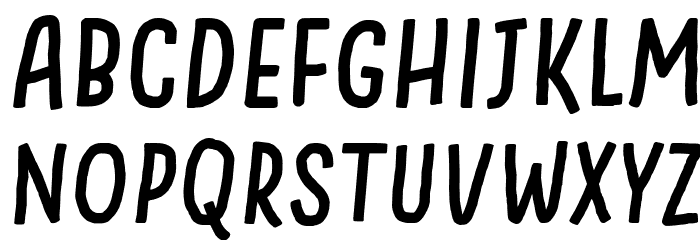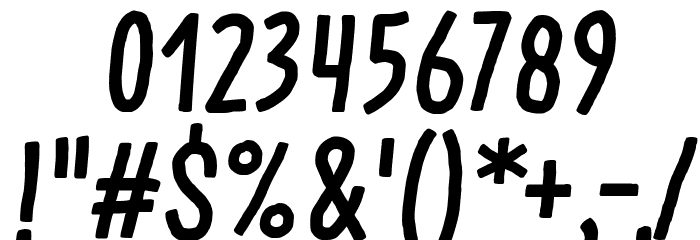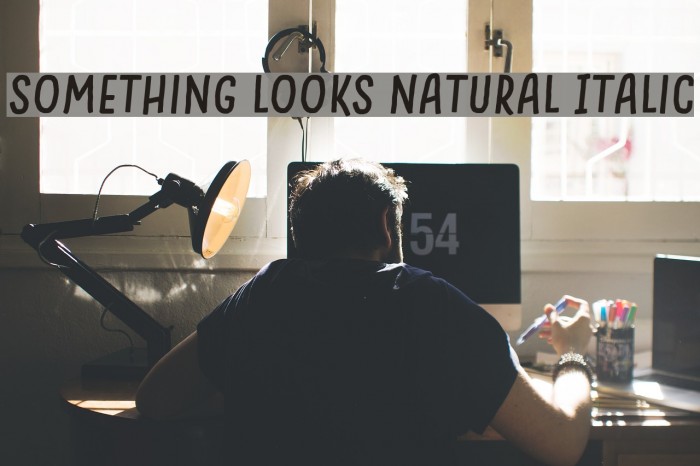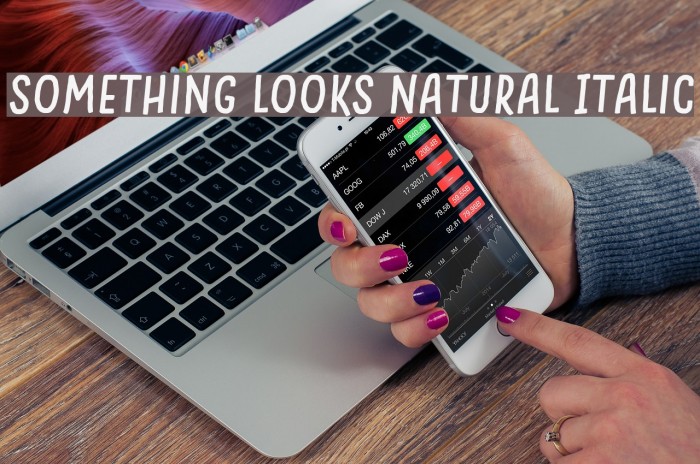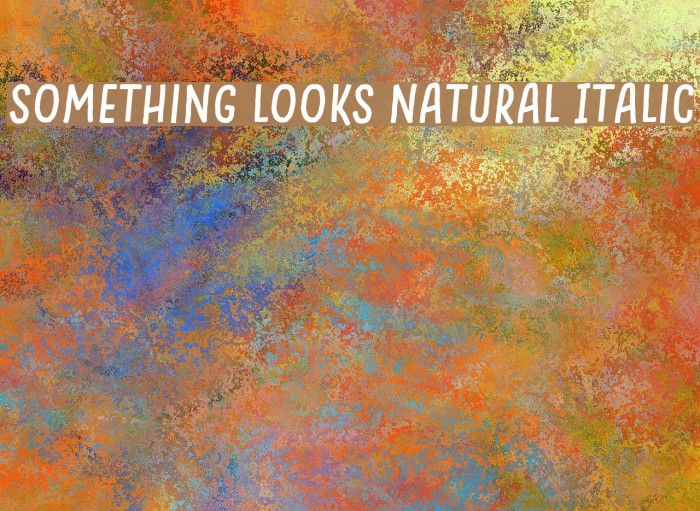
Something Looks Natural Italic Font
This font features a natural, handwritten style with a slight italic slant, giving it a casual and approachable feel. The letters are slightly uneven, mimicking the imperfections of hand-drawn text, which adds to its charm and authenticity. The uppercase and lowercase letters maintain a consistent style, with rounded edges and a moderate stroke width that ensures readability. The numbers and special characters are designed to match the overall aesthetic, providing a cohesive look across all elements. This font is versatile, suitable for projects that require a personal touch or a relaxed vibe.
A natural, handwritten font with a slight italic slant and casual style.
- Proposed Projects: Ideal for greeting cards, personal blogs, casual branding, and social media graphics.
- Category: Handwritten
- Overall Style: Casual
- Use Case: Headlines, Logos, Social media graphics